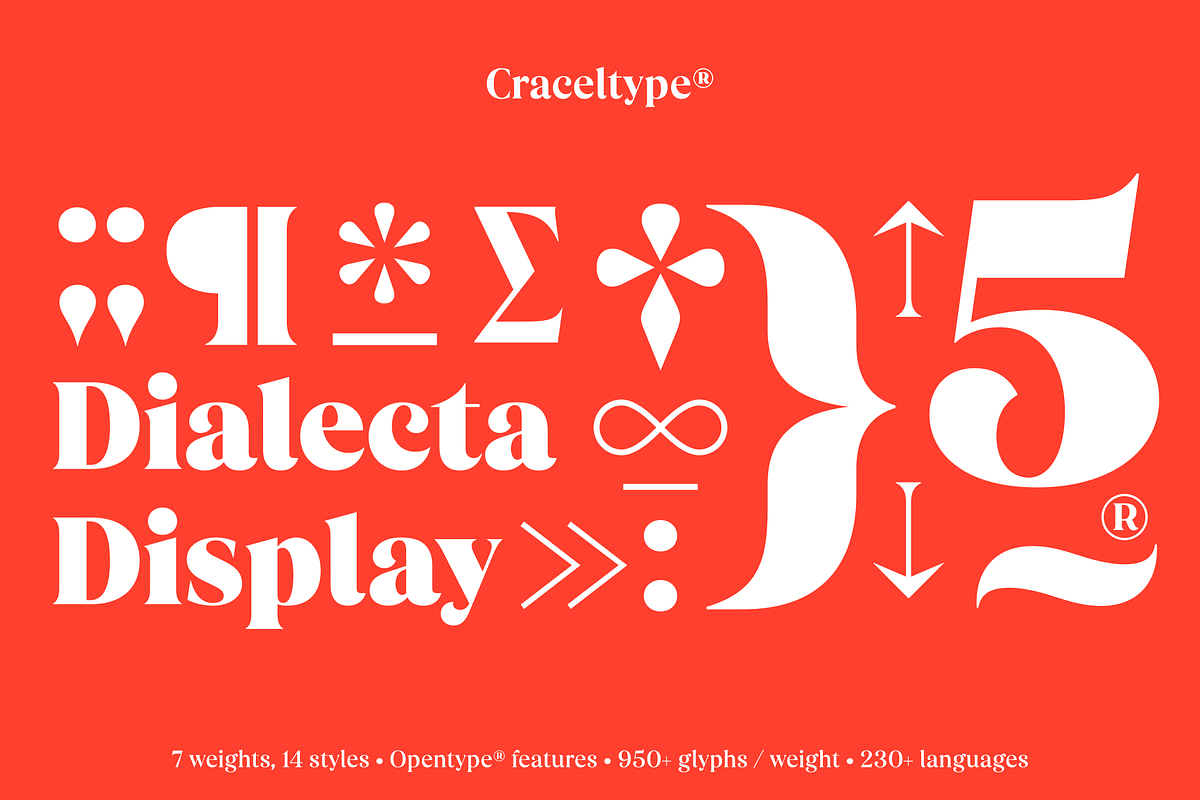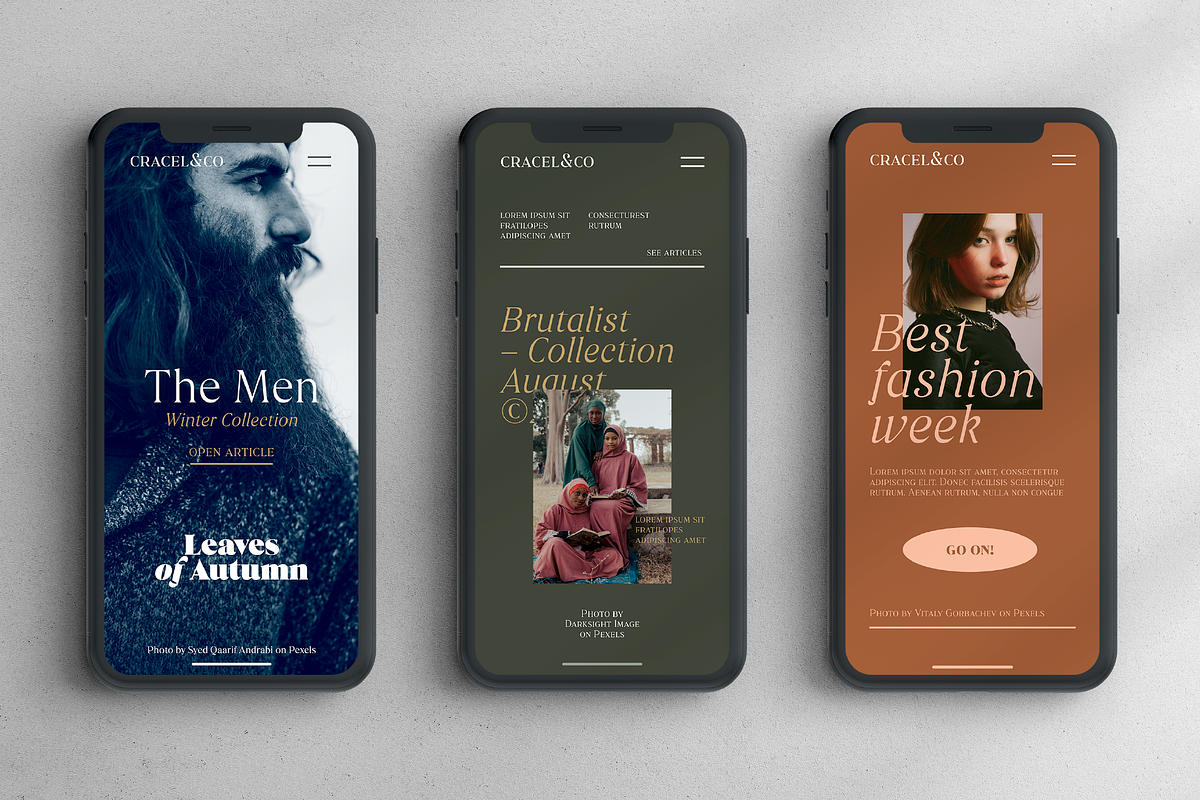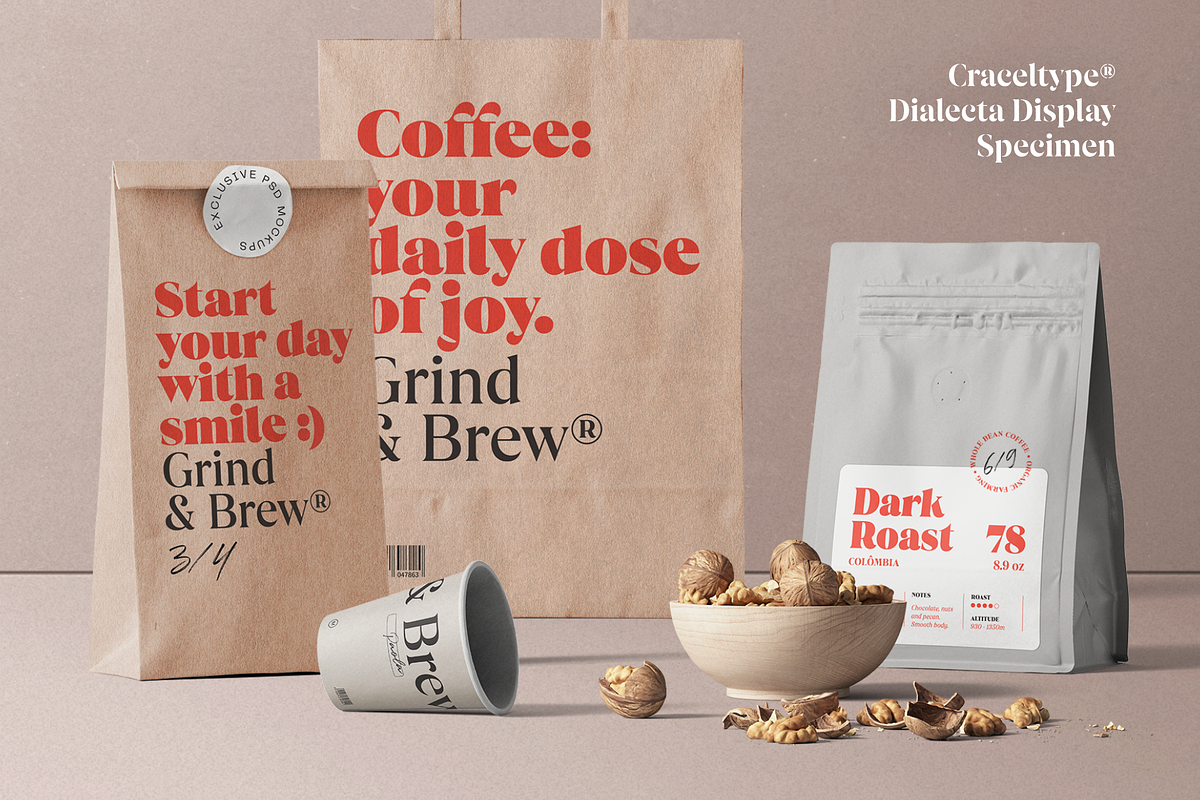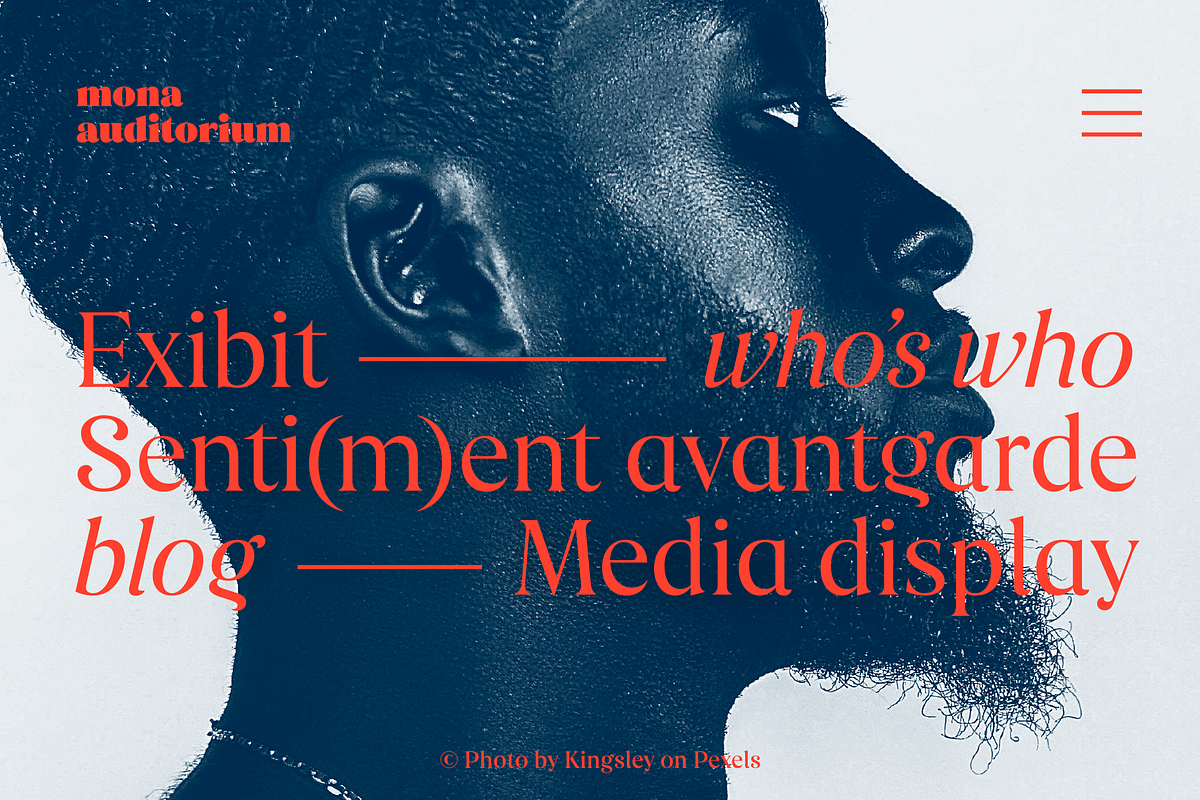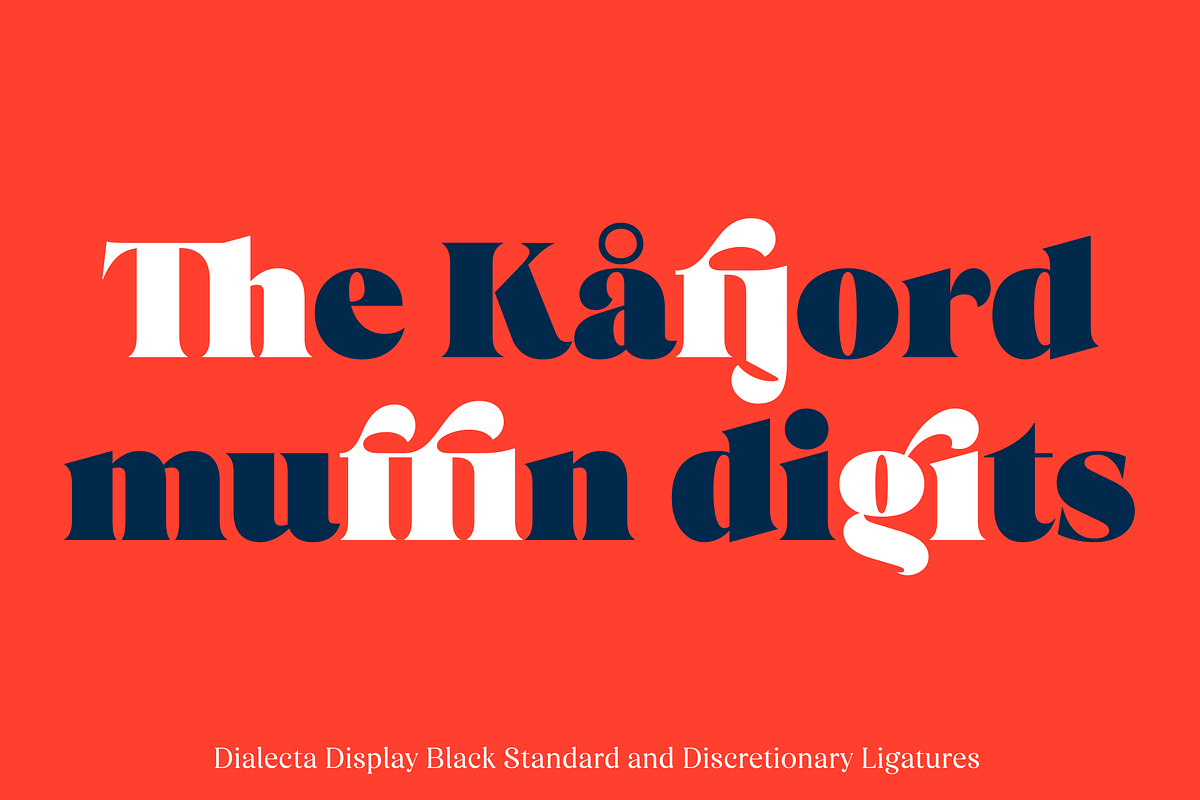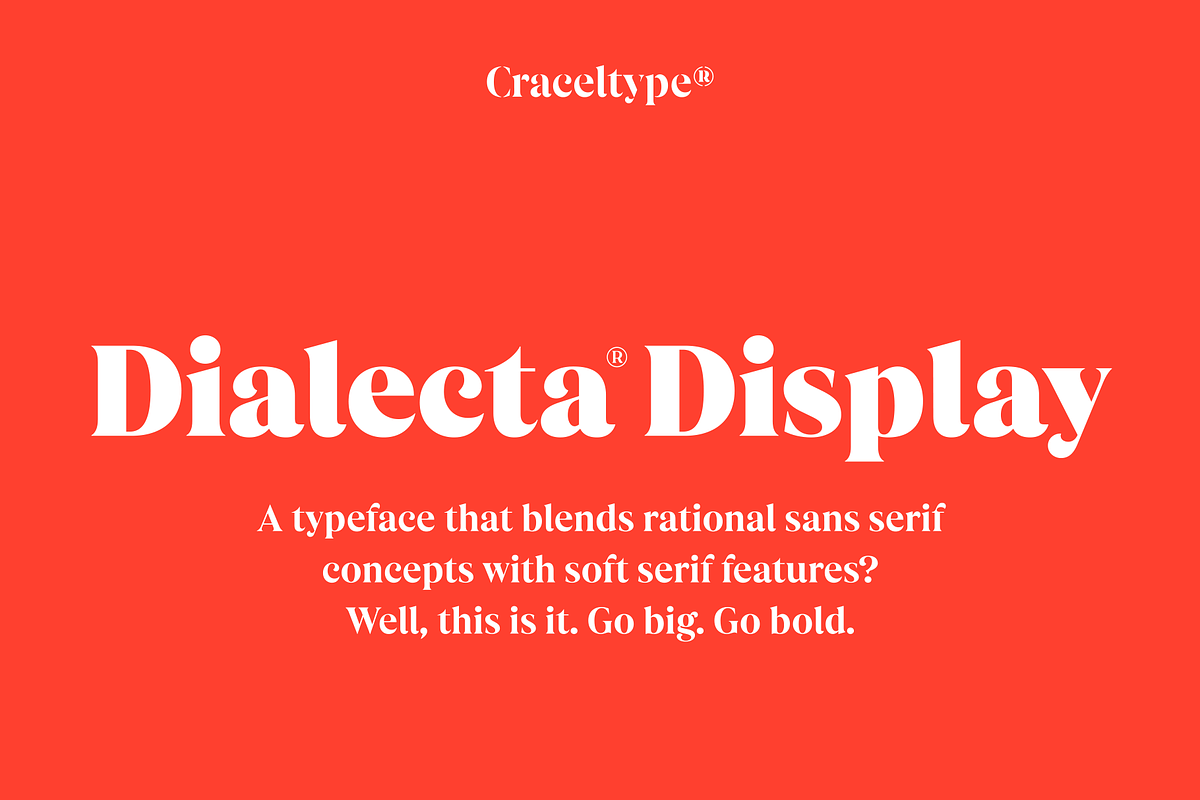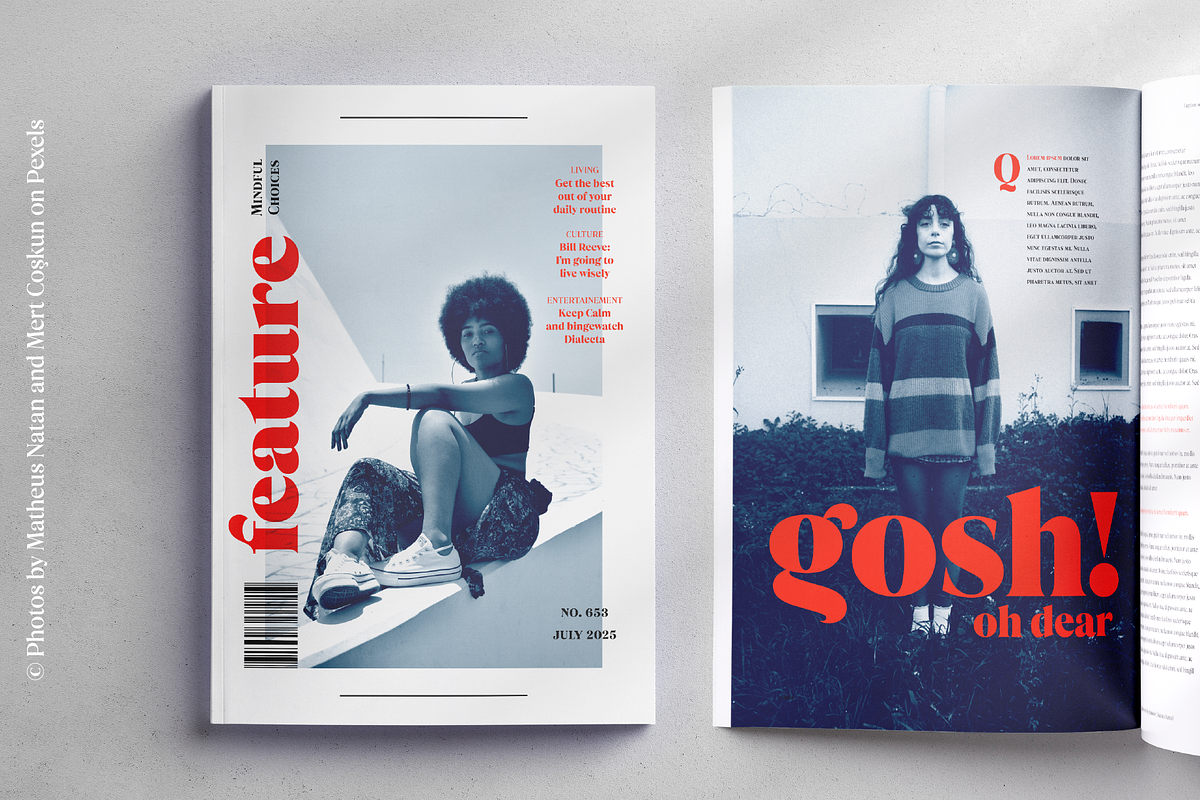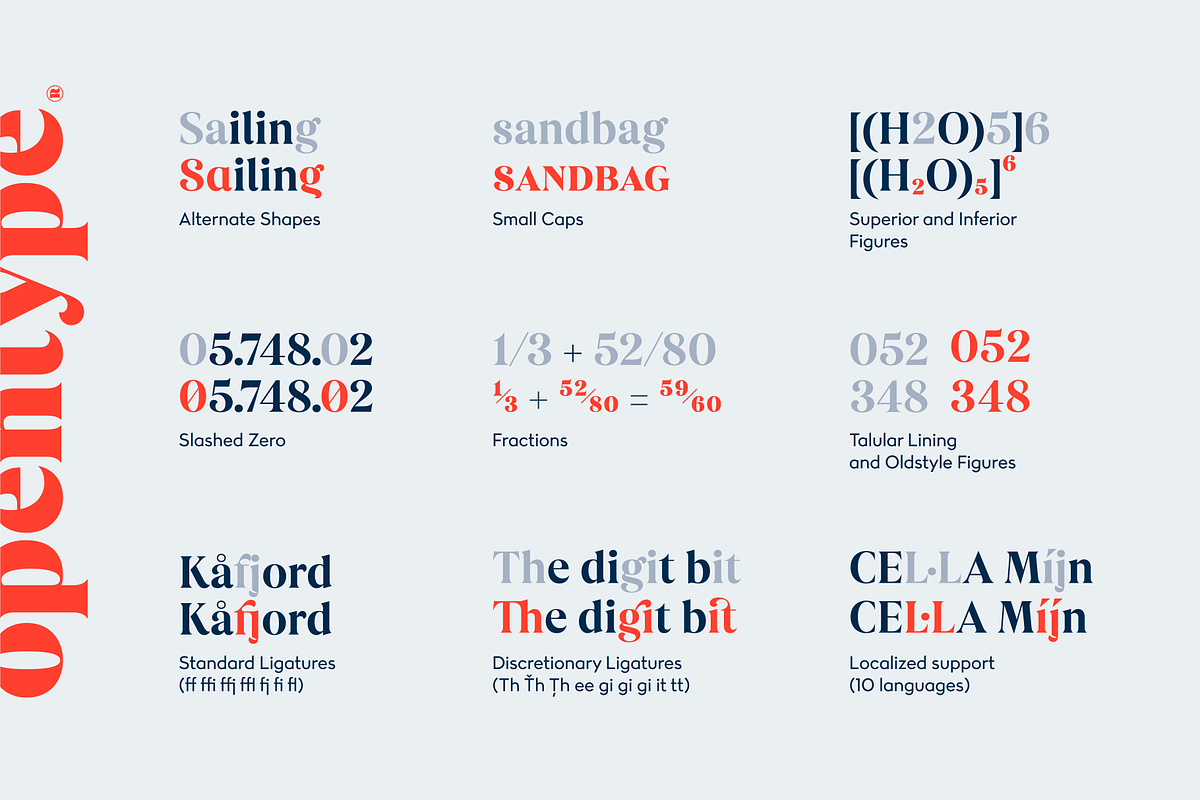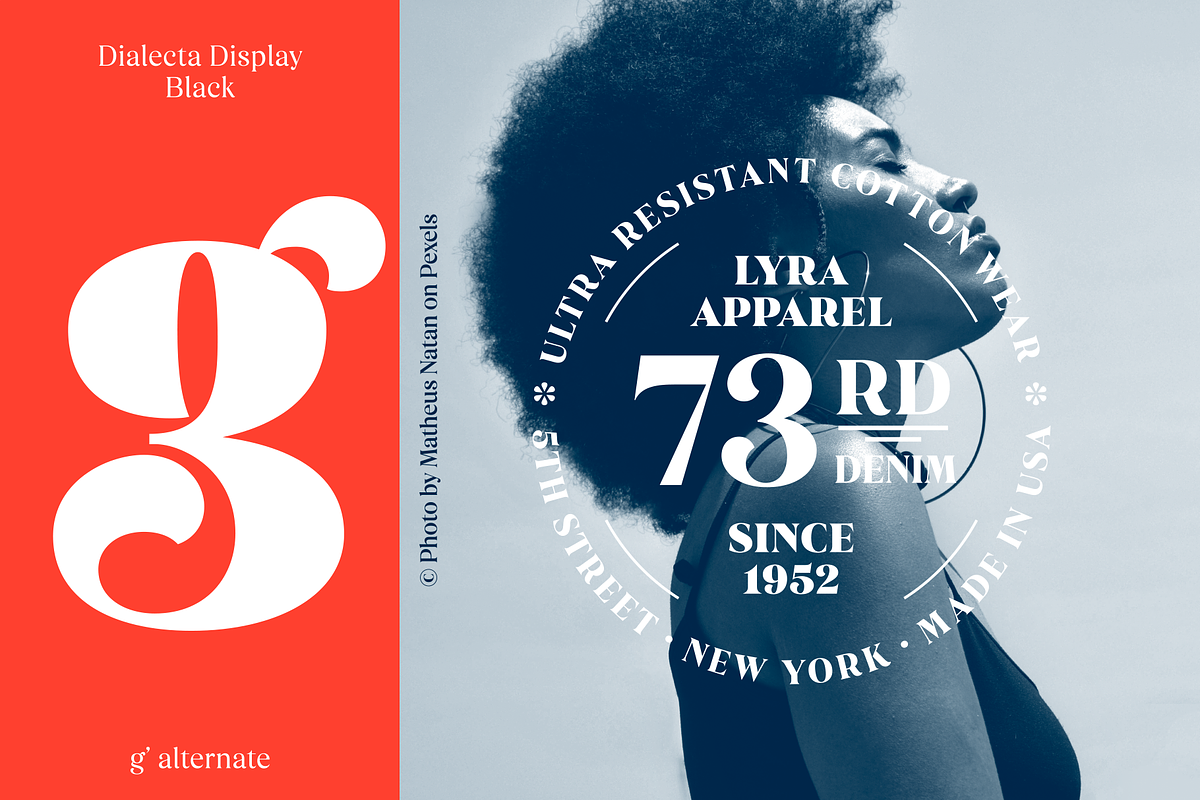
Dialecta Display
It all started with a dare: creating a rational serif typeface with a hard grid as a working foundation. The result was Dialecta Display — a stylish and distinguished typeface that merges the geometric concepts of sans serif fonts with the elegance of serifs. Its gentle and analytical design ensures great performance, ideal for big and bold headlines.
With a large x-height and true italics, it provides 14 styles and over 950 glyphs per style, covering 230+ languages. Like its siblings in the Dialecta font family, Dialecta Display features a wide range of alternate characters, small caps, ligatures, case-sensitive forms, and more, making it highly versatile and expressive in headline settings.